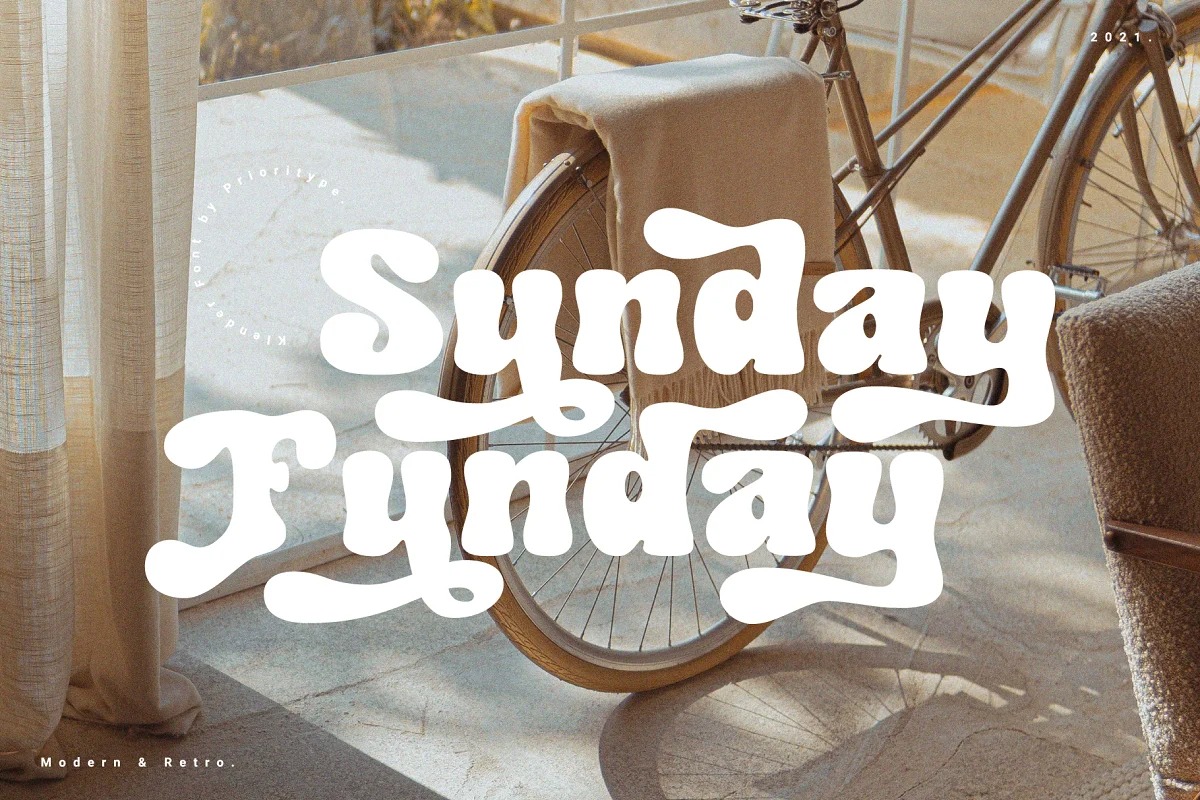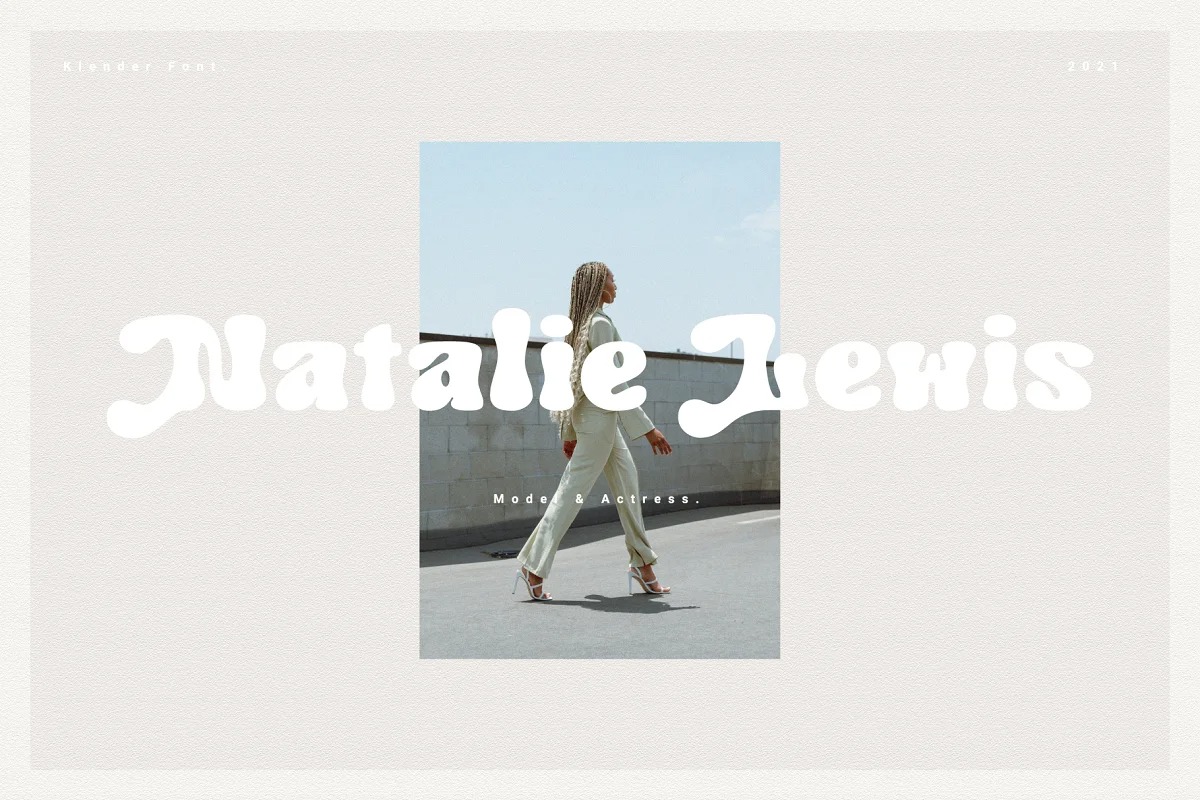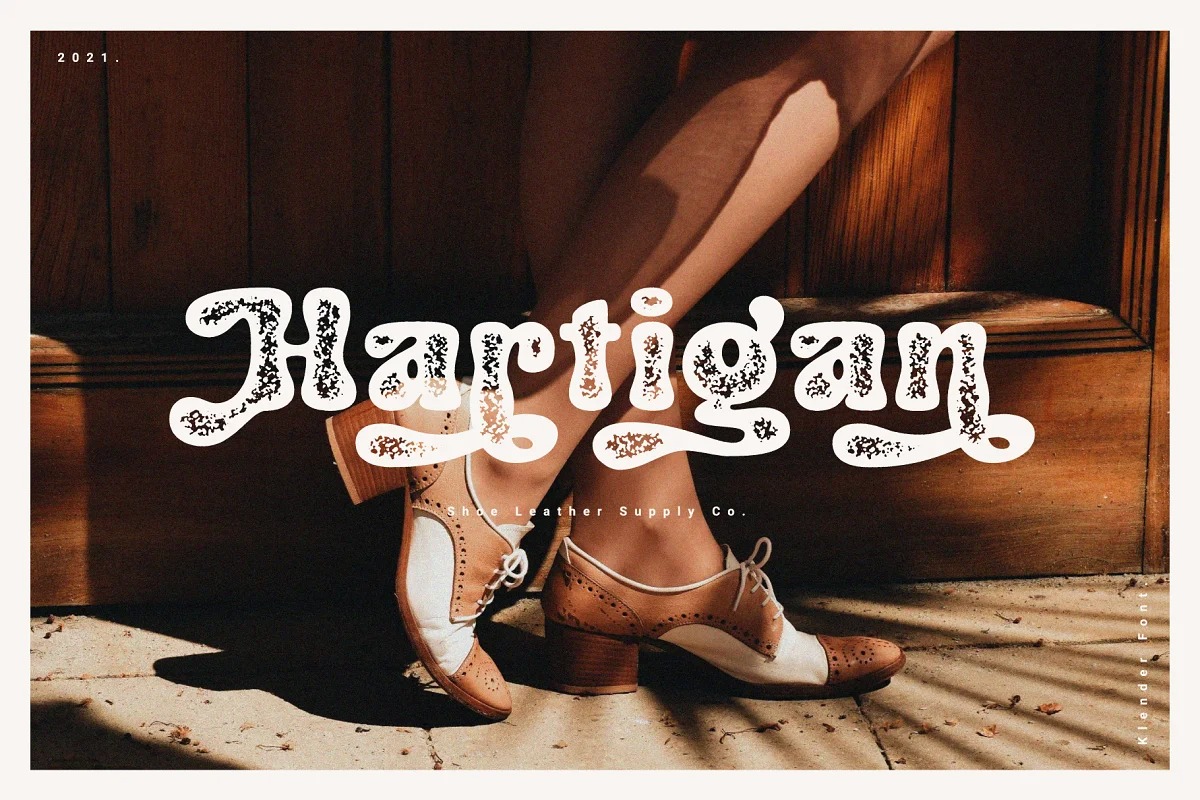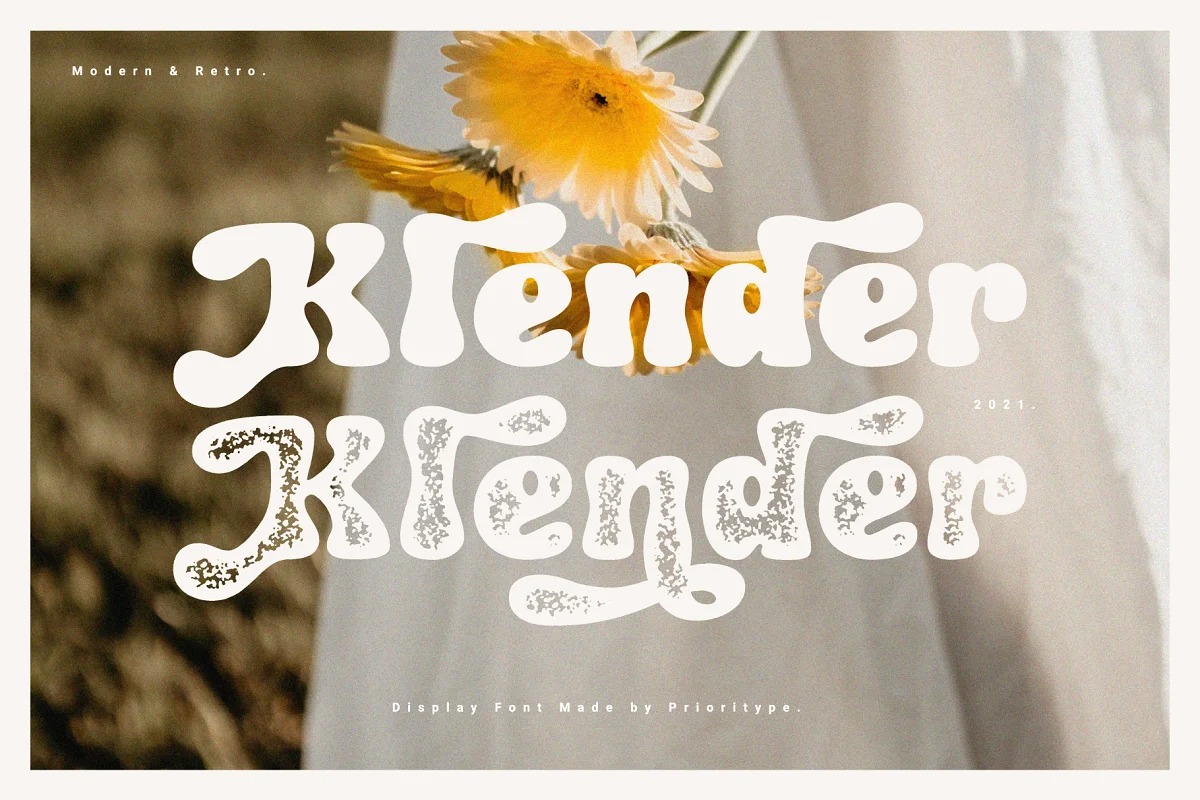
Klender Display Font
This typeface is handmade vintage serif fonts have some additional alternative characters that make them beautiful. Inspired by classic western culture, custom culture motorcycle and combining with vintage touch. With these 2 styles you can apply them to your branding designs, business cards, posters, social media posts, merchandise and more.